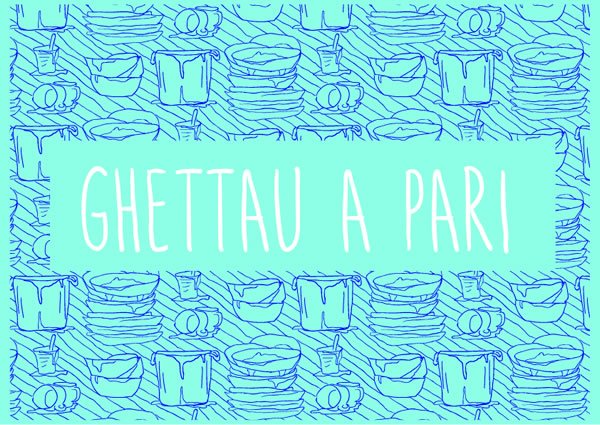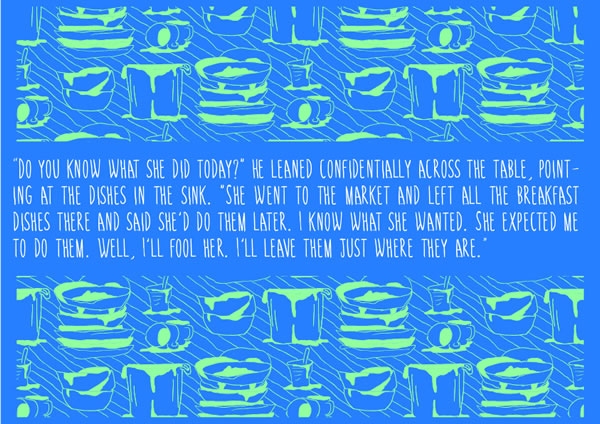
The Joy of Hand-Drawn Typography
We’ve all been there – sitting at our desks, staring at a blank screen, and searching for the perfect font to bring our design to life. Sometimes, it’s not just about finding the right font, but about creating a sense of personality and charm that sets our work apart. For Silvia Porcu, the creator of the adorable Ghettau a Pari Font, this moment of inspiration led to the development of a truly unique and captivating typeface.
Ghettau a Pari Font is a hand-drawn masterpiece designed to add a touch of whimsy and playfulness to any design project. With its distinctive charm and character, this font is perfect for designers looking to inject some personality into their work. Whether you’re creating a children’s book, a wedding invitation, or a social media campaign, Ghettau a Pari Font is sure to bring a smile to your audience’s faces.
Ghettau a Pari Font Key Features
- Size: The font has a total of 6 styles, including Regular, Bold, Italic, Bold Italic, and two additional display styles.
- Unique Characteristics: Ghettau a Pari features a unique, hand-drawn design with a mix of modern and vintage elements, making it suitable for a wide range of creative projects.
Ghettau a Pari Font Review
I recently had the chance to work with the Ghettau a Pari font, and I must say it’s a unique addition to any project. ✨ One thing that stands out is its versatility – it can be used for both modern and vintage-inspired designs.
- ✨ Great for creating a distinctive brand identity
- ✨ Suitable for a wide range of applications, from logos to body text
- ✨ Includes a variety of font styles and weights
However, I did encounter a few limitations ⚠️:
- ⚠️ May not be suitable for body text in large blocks, as it can be difficult to read
- ⚠️ Some letters may be difficult to distinguish, especially in low-resolution settings
- ⚠️ Limited international support, which may cause issues with non-English text
Overall, I think the Ghettau a Pari font is a great choice for designers looking to add a touch of uniqueness to their projects. While it may not be suitable for every application, it’s definitely worth considering for specific use cases.
Tips for Getting the Most Out of Ghettau a Pari Font
For best results, use Ghettau a Pari Font in bold or italic styles to add emphasis to your text.
Experiment with different font sizes and combinations to create a unique and eye-catching design.
Ghettau a Pari Font is ideal for:
Displaying headlines and titles.
Creating a vintage or retro aesthetic.
Adding a touch of elegance and sophistication to your design.